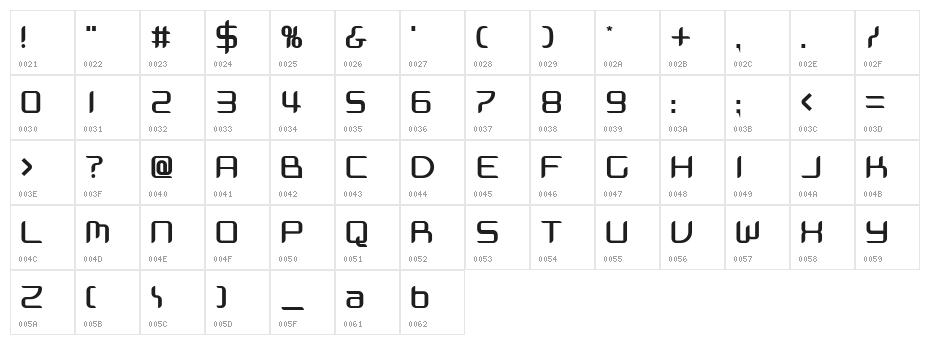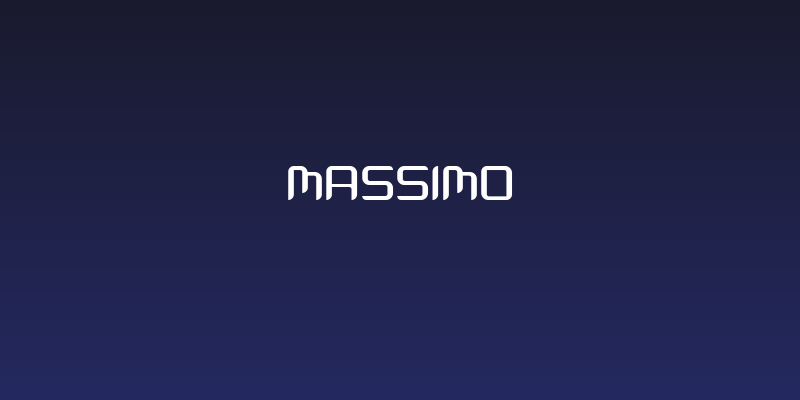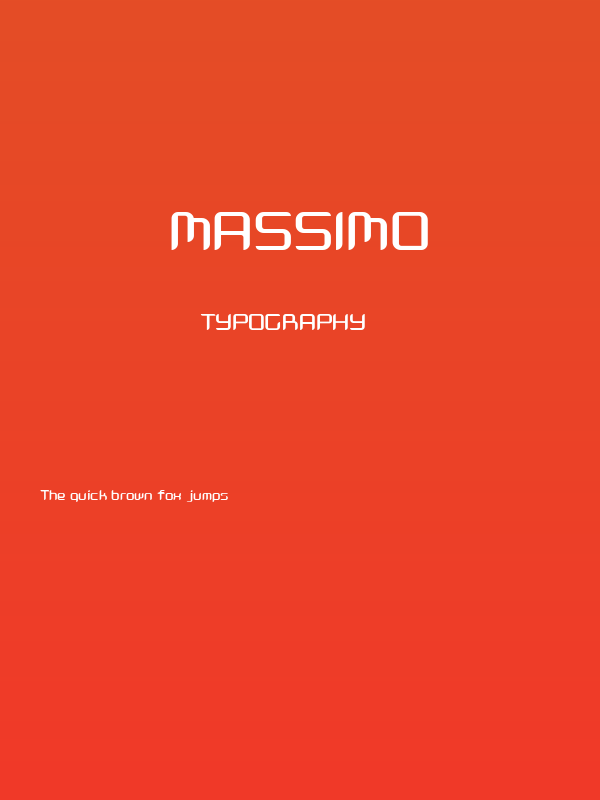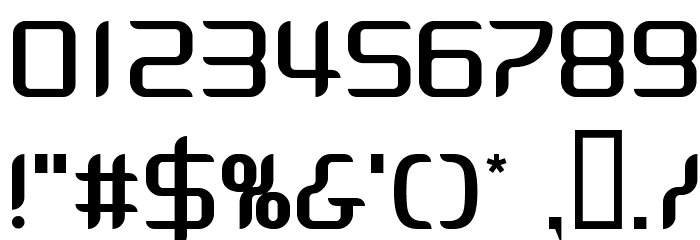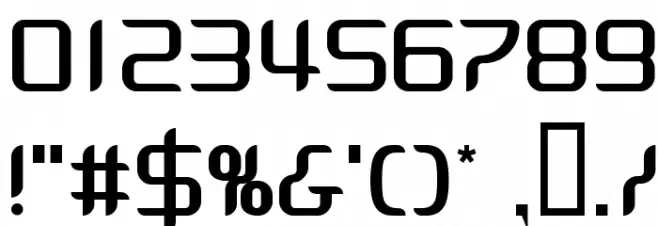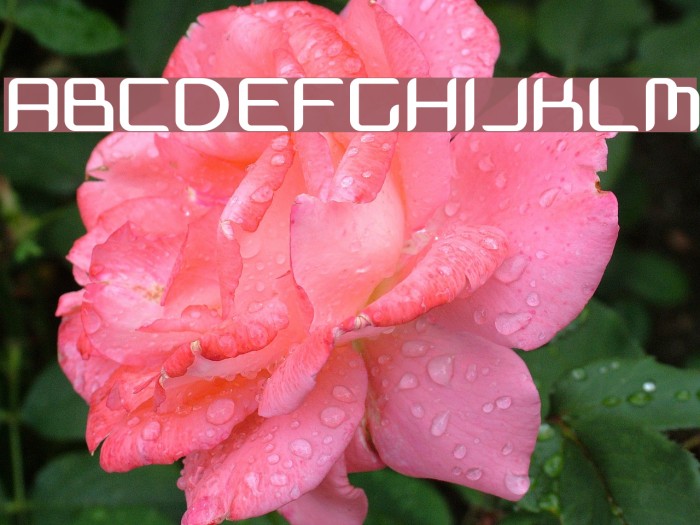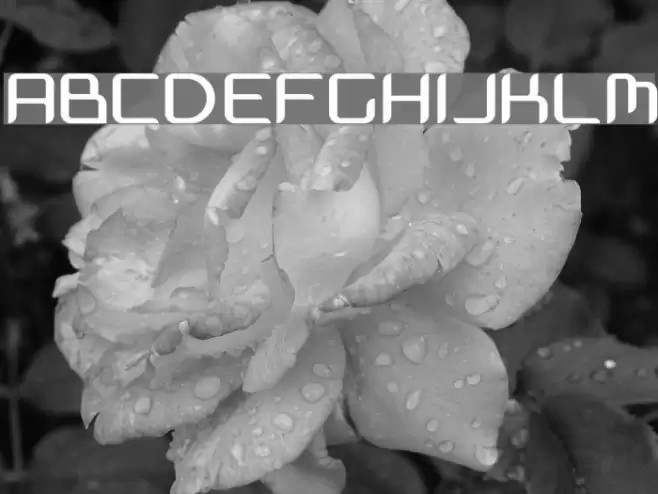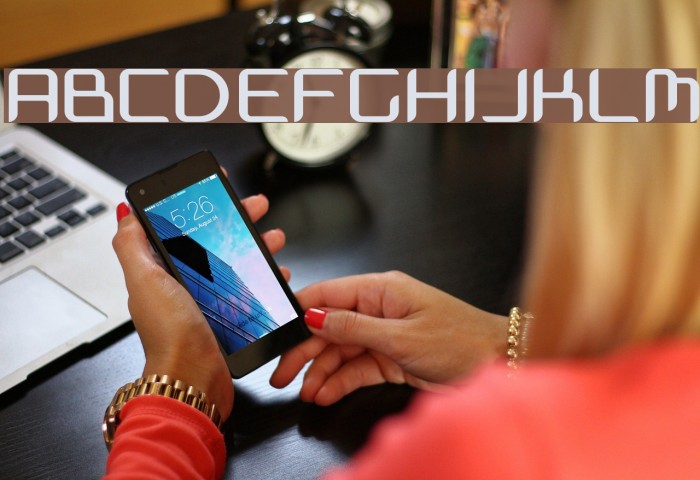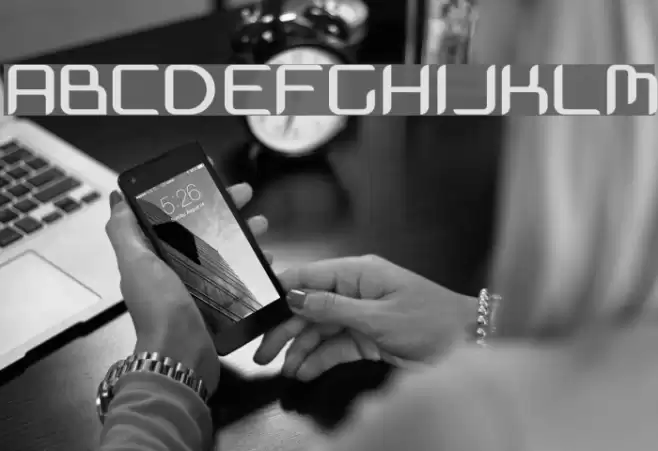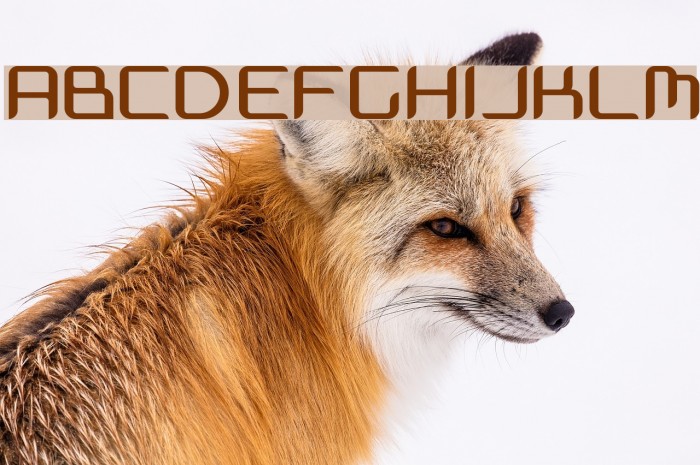
Massimo Font
Massimo Description
This font features a modern and futuristic design with rounded edges and a geometric structure. The characters are uniform in width, creating a cohesive and balanced appearance. The uppercase letters are bold and prominent, while the lowercase letters maintain a consistent style with slightly softer curves. The numerals are distinct and easy to read, complementing the overall aesthetic. Special characters are designed with the same attention to detail, ensuring they fit seamlessly with the rest of the font. The font's clean lines and contemporary feel make it suitable for a variety of design applications.
| Use Case | Headlines, Logos, Digital Interfaces |
| Proposed Projects | Ideal for tech branding, digital interfaces, and modern advertising campaigns. |